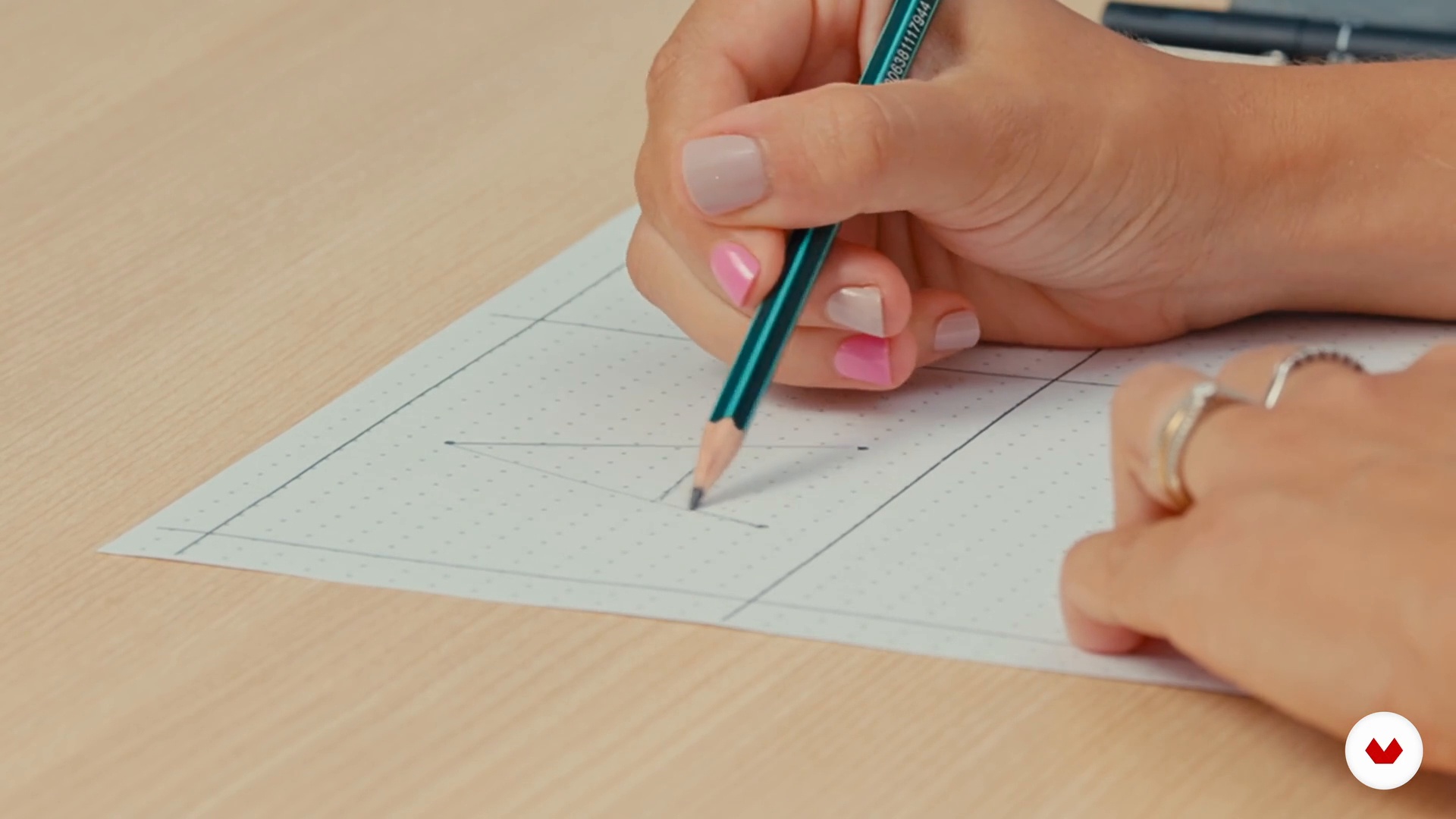
Font design with and without serif
About the video: Font design with and without serif
“In this lesson, you will start sketching two styles of lettering. Both with super easy hacks for creating an objective and practical design of sans serif and serif fonts.”
In this video lesson Karol Stefanini addresses the topic: Font design with and without serif, which is part of the Domestika online course: Creative Lettering: Draw Words with Style. Learn to combine text, colors, and other decorative elements to compose fun, eye-catching lettering pieces on any surface.
“Font design with and without serif In the previous class, I introduced to you the concept of creating each of the lettering styles. Now, it's time to practice each of them. Let's start with sans serif and serif letters. Coming here to the table, you already see the materials that we are going to use: the classic pencil, eraser and black pen for contouring and finishing. I have here a sheet already assembled and divided into four parts, where will i put each of the letters and I will teach you how to create the template for this sheet in the next classes. Don't worry because the material is ...”
Karol Stefanini is a designer by trade and a true artist at heart. It was while at university that Karol first discovered typography and, after graduating, made the decision to dive into the world of lettering. Since then, she has been writing her story in stunning letters full of style and creativity.